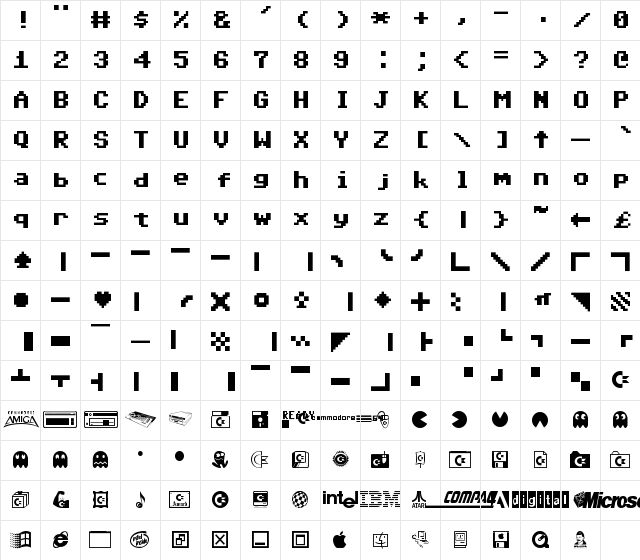
Commodore 64 Regular Free Font
Commodore 64 Regular
Designer: Devin D. Cook (www.DevinCook.com)
Design Context for Commodore 64
Commodore 64 is a composed and adaptable typeface that performs quietly and consistently across a wide range of design contexts.